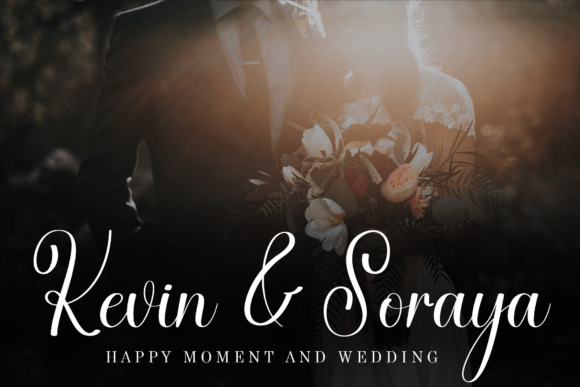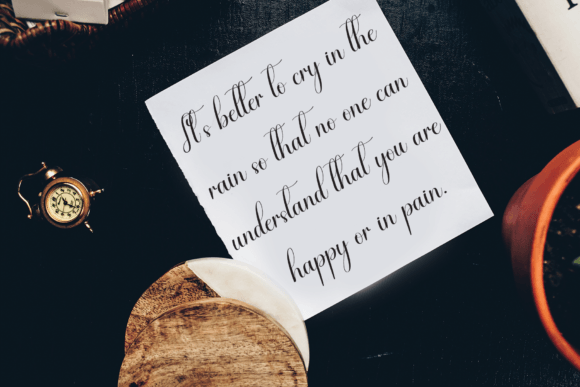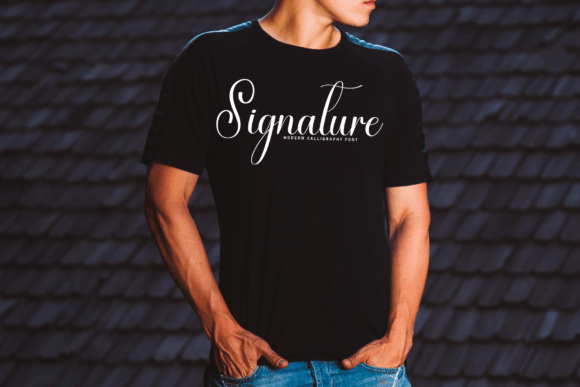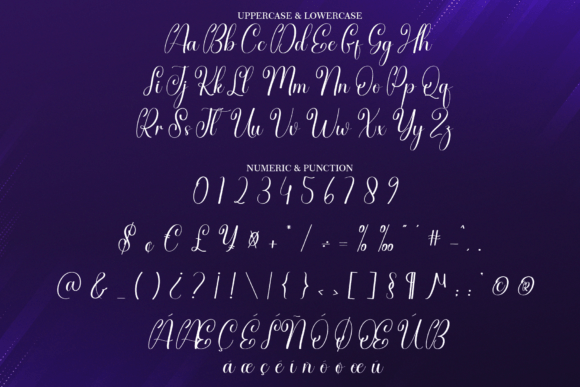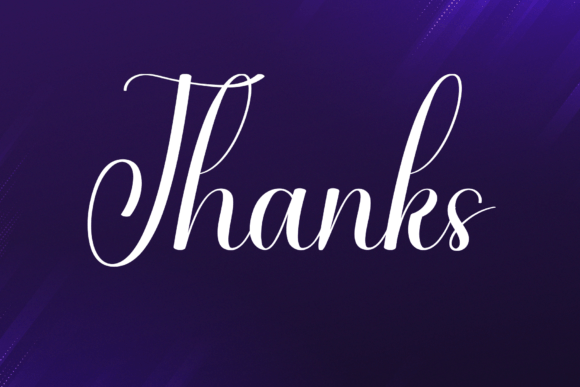
Introduction to Dark Purple Font
Have you ever stared at a blank canvas, searching for the perfect font to bring your creative project to life? I know I have. There’s something magical about finding that one font that speaks to your design vision, elevating your work from good to great. For me, that font was the Dark Purple Font, a stunning script and handwritten typeface that has become my go-to for adding a touch of sophistication and allure to any design.
With its bold strokes and intricate details, the Dark Purple Font is a high-quality design resource that adds a level of intensity to any project. Whether you’re working on a logo, invitation, or marketing campaign, this font is sure to make a lasting impression. Plus, with a free download available, designers can access this versatile font without breaking the bank. And, with a transparent background, it’s easy to integrate into any design, making it a valuable addition to any design arsenal.
Key Features of Dark Purple Font
- High-quality, professional design perfect for creative projects and presentations.
- Unique, modern design aesthetic that adds a touch of sophistication to any creative project.
Honest Review: Dark Purple Font
As a designer, I’m always on the lookout for high-quality design resources that can elevate my creative projects. The Dark Purple Font is one such resource that caught my attention.
What works well with this font is its unique aesthetic. The deep, rich color of the font adds a touch of sophistication to any design. I particularly appreciate its versatility, as it can be used for both digital and print-based projects. Plus, it’s a free download, making it an excellent addition to any designer’s toolkit.
Some of the standout features of the Dark Purple Font include:
One potential limitation of the Dark Purple Font is its limited character set. While it includes a range of letters and numbers, it may not be sufficient for complex projects or designs that require multiple languages.
Overall, I’m impressed with the Dark Purple Font’s potential to add a touch of elegance to my designs. While it may have some limitations, its high quality and creative possibilities make it a valuable design resource. ⚠️ Just be mindful of its limitations when using it for complex projects. ✨
Common Use Cases for Dark Purple Font
The Dark Purple Font is ideal for use in wedding invitations, luxury branding, and creative portfolios. Its sophisticated and elegant design makes it perfect for adding a touch of class to your high-end projects.